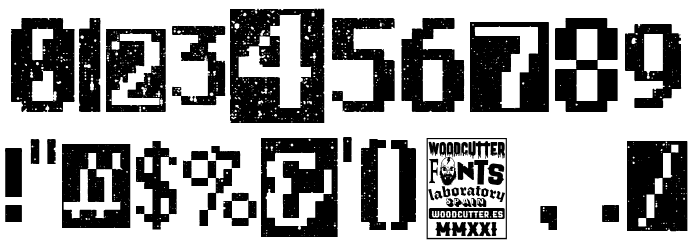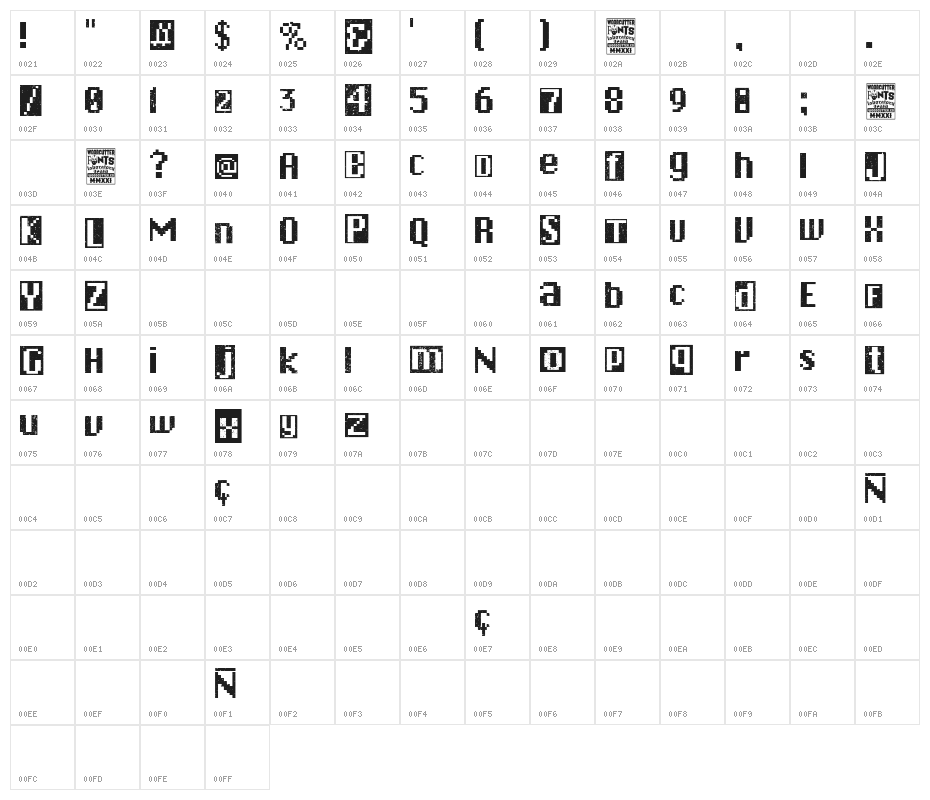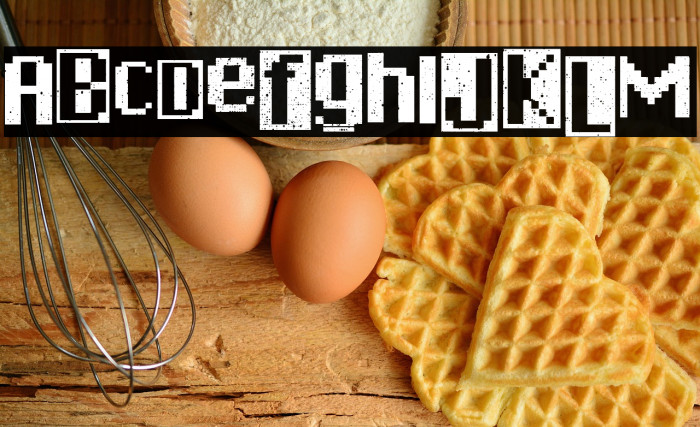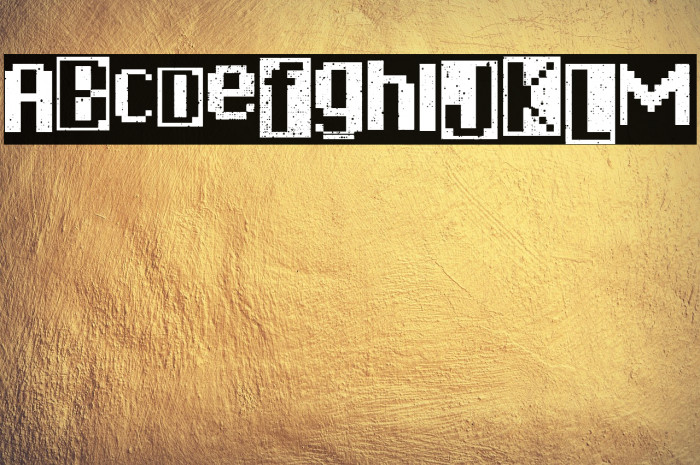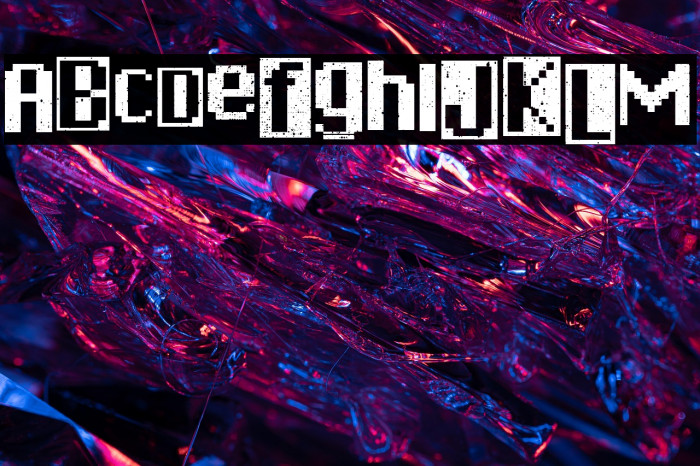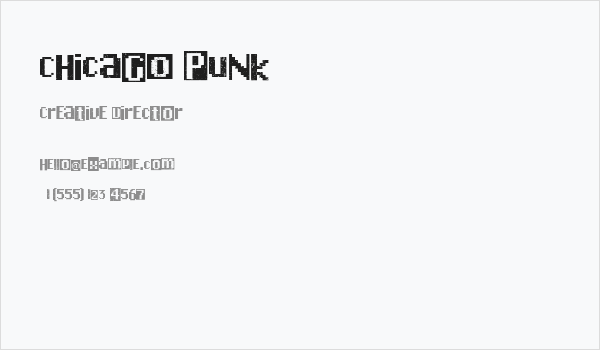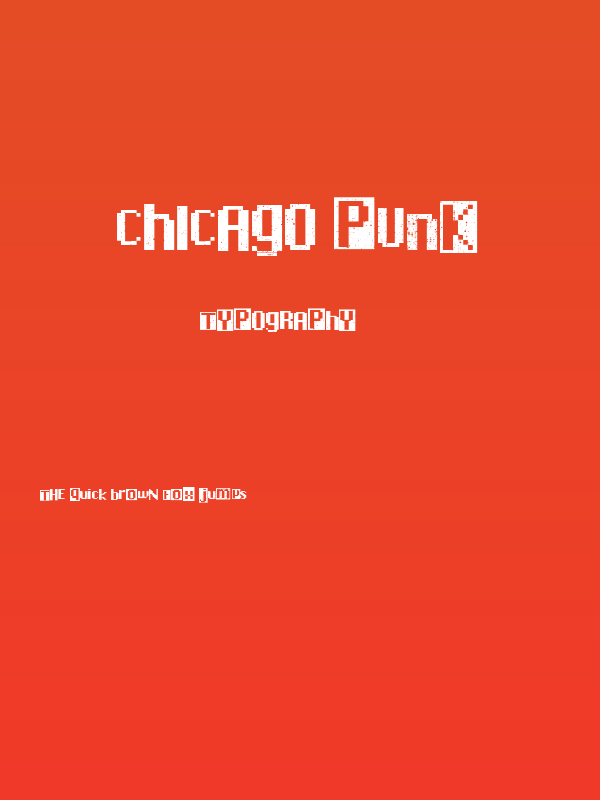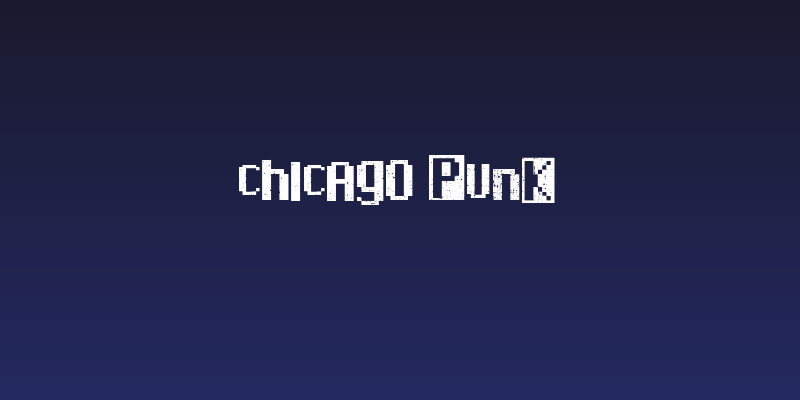
Chicago Punk Font
Chicago Punk Description
This font features a gritty, distressed aesthetic reminiscent of punk rock and urban street art. Each character is encased in a bold, blocky form with a textured, worn appearance that suggests a sense of rebellion and raw energy. The uppercase and lowercase letters maintain a consistent height, creating a uniform look across the alphabet. Numbers and special characters are designed with the same rugged style, ensuring a cohesive visual theme. The font's unique, edgy vibe makes it ideal for projects that aim to capture a sense of boldness and individuality.
Overall StylePunk, Urban, Edgy
Use CaseHeadlines, Logos, Posters
Proposed ProjectsIdeal for music album covers, concert posters, streetwear branding, and edgy editorial designs.